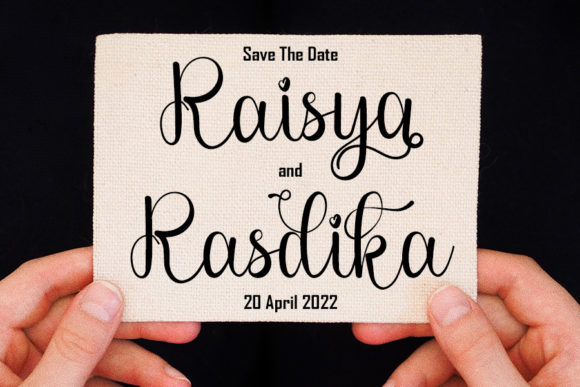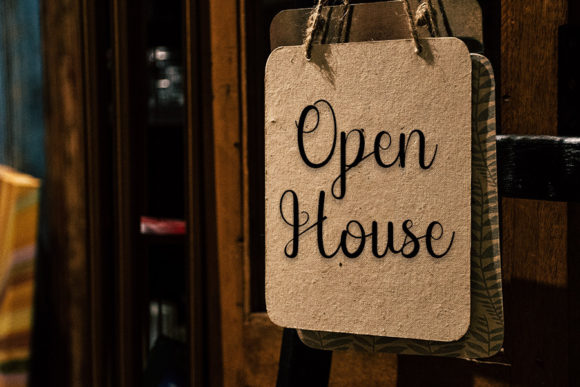
Boho Sweet Font
db-ku.com - Script & Handwritten -- Boho Sweet is a well-balanced handwritten font with a contemporary atmosphere and impeccable form, inspired by a timeless classic calligraphy. It will look outstanding in a wide range of contexts.